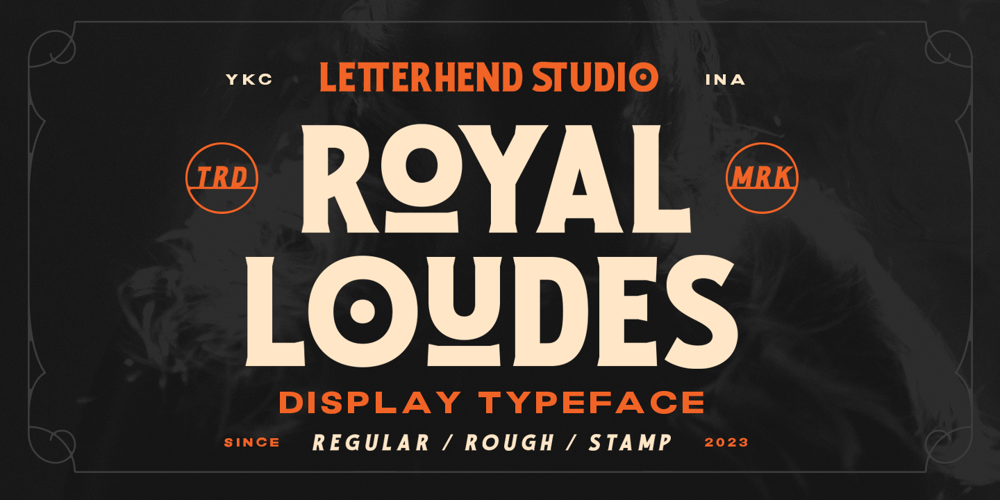
Royal Loudes
Royal Loudes font
Royal Loudes Font Family was designed by Hendry Juanda and published by Letterhend. Royal Loudes contains 3 styles and family package options. Bold and powerful, Royal Loudes is a top-of-the-line display font that commands attention. Its impeccable quality is evident in its flawless execution, with each letter carefully crafted to perfection. Available in three unique styles – regular, rough, and stamp – this font offers a dynamic range of options to suit any design need.Features : Uppercase & lowercase Numbers and punctuation Alternates & Ligatures Multilingual PUA encoded We highly recommend using a program that supports OpenType features and Glyphs panels like many of Adobe apps and Corel Draw, so you can see and access all Glyph variations.